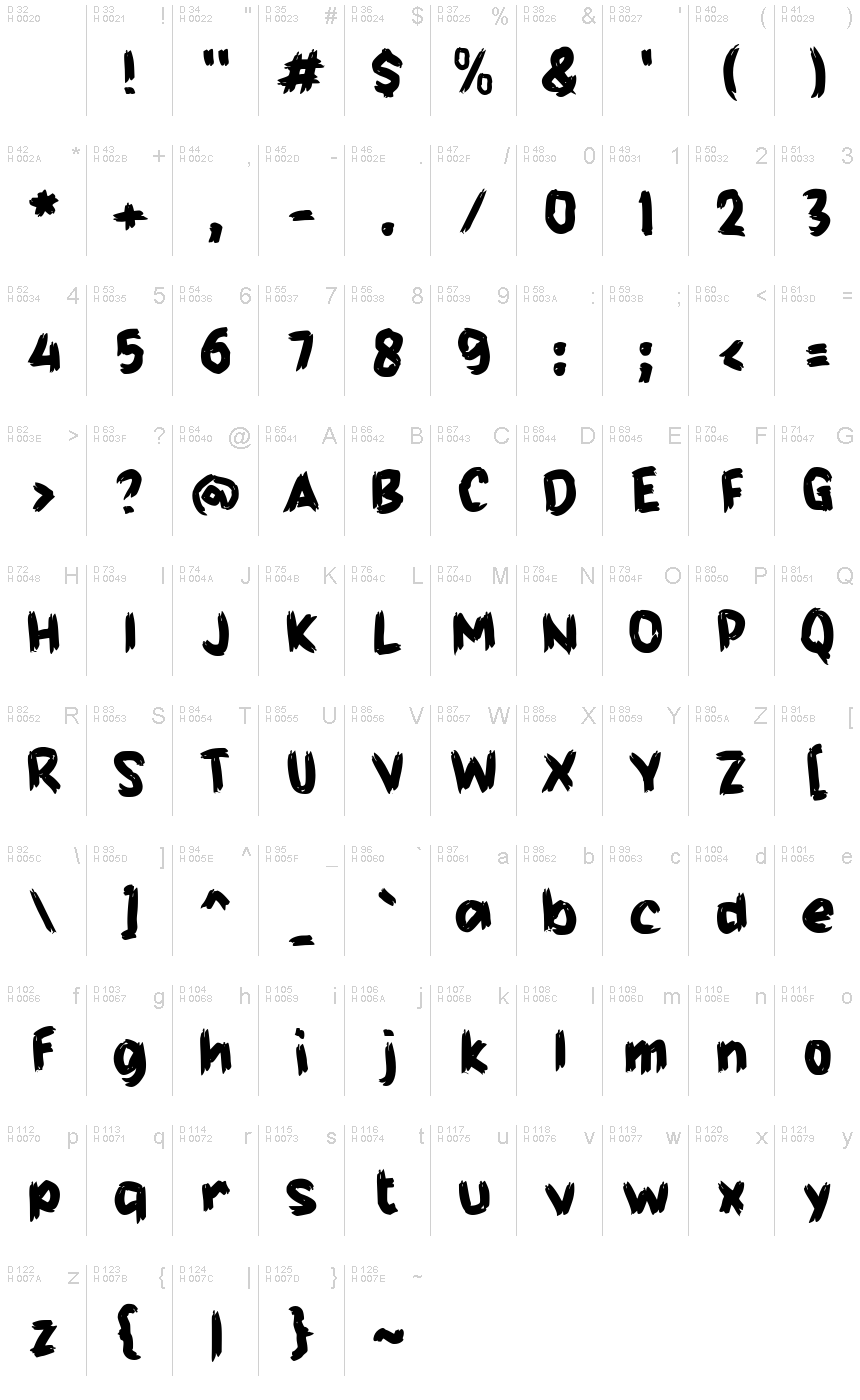
Foregate
Foregate is a bold, brush-style font designed by wep. Its striking, organic strokes evoke a sense of fluidity and movement, lending a dynamic, expressive quality to any text. The distinct, angular terminals and the seamless flow of the letterforms create a captivating visual rhythm that demands attention.
This font's versatility shines through, making it an ideal choice for a wide range of design applications, from bold headlines and impactful branding to expressive typography in editorial layouts. Its unique character lends itself well to projects that seek to convey a sense of energy, creativity, and a touch of the unconventional. Foregate's bold presence and artistic flair make it a standout option for designers seeking to make a lasting impression.